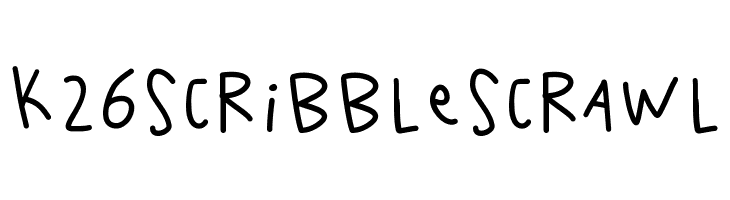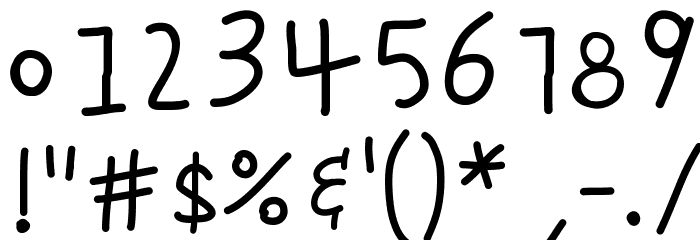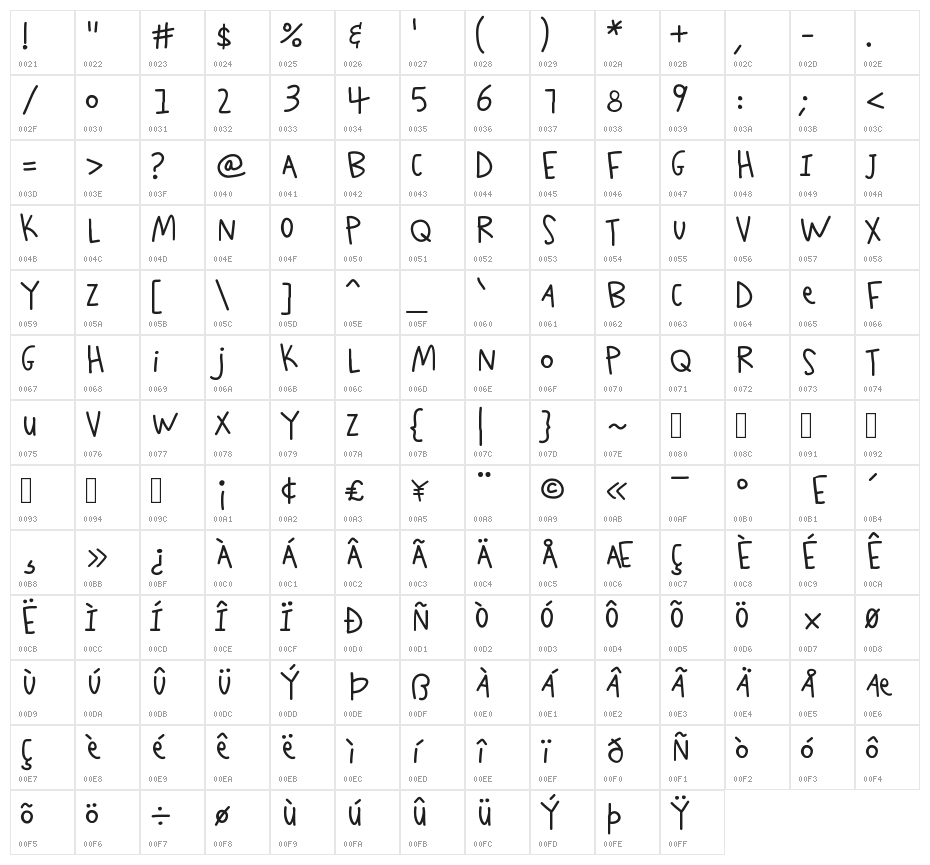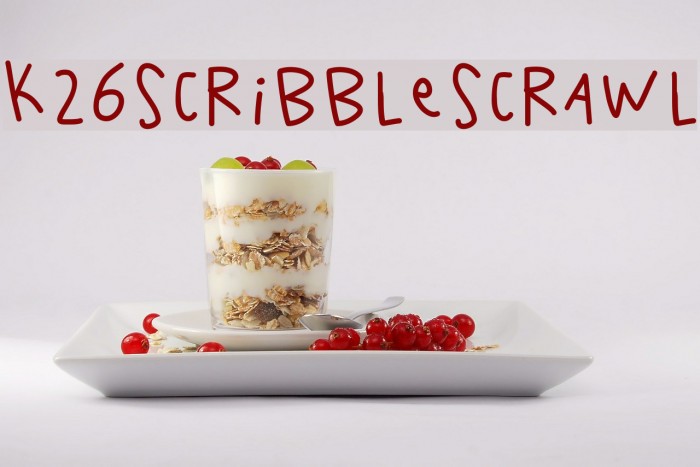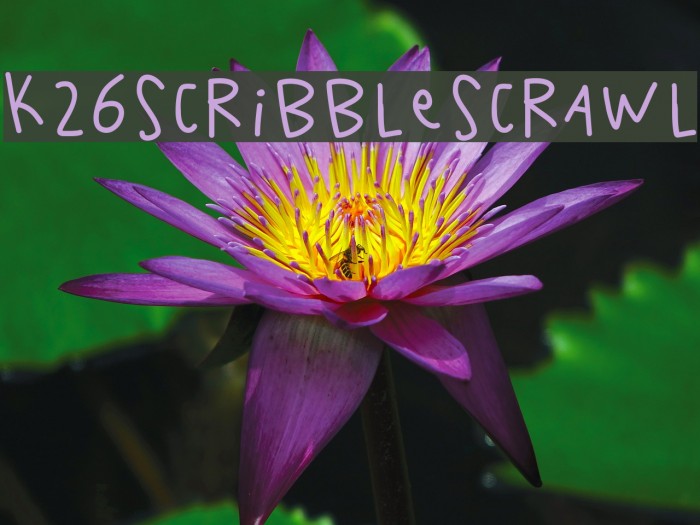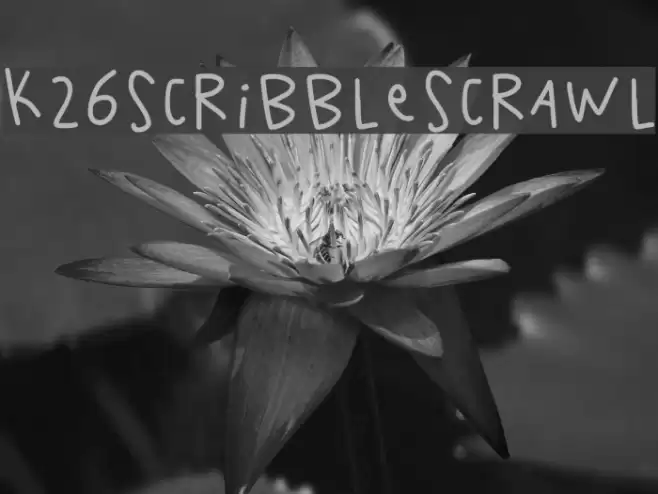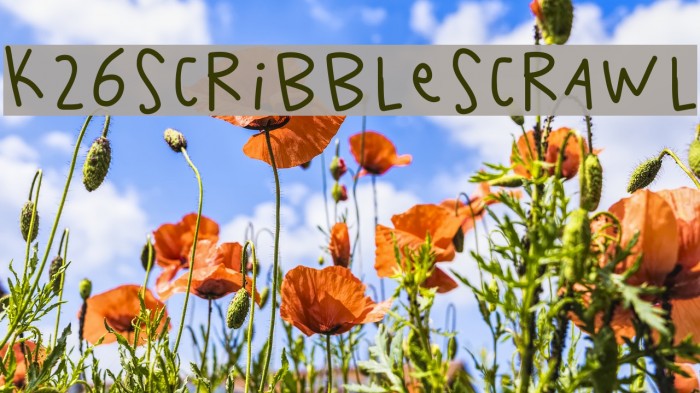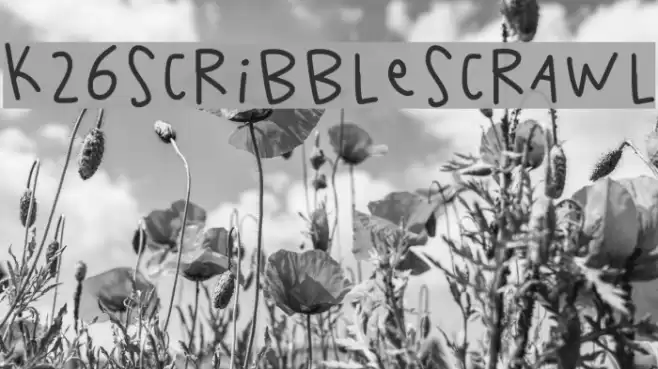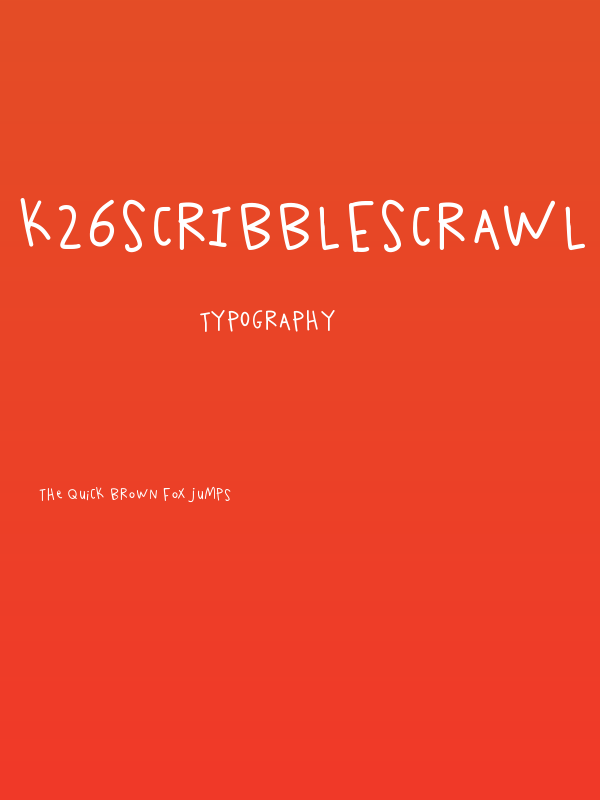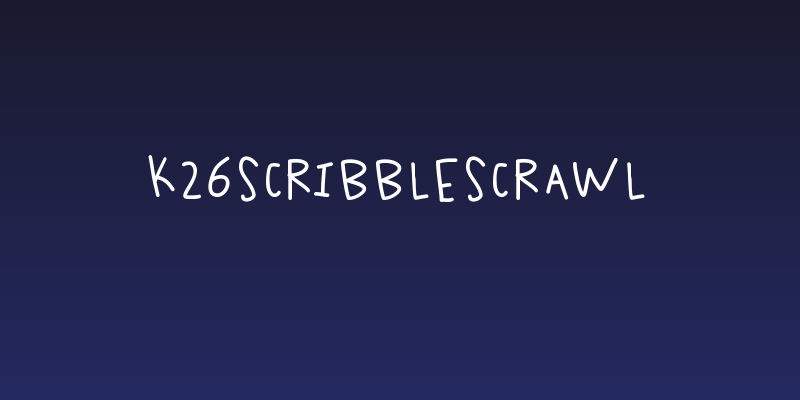
K26ScribbleScrawl Font
K26ScribbleScrawl Description
This playful and informal font features a handwritten style that mimics the look of casual scribbles. The characters are slightly irregular, adding a whimsical and personal touch to any design. The strokes are consistent in thickness, giving it a uniform appearance despite its casual nature. The font includes both uppercase and lowercase letters, numerals, and a range of special characters, making it versatile for various uses. Its charm lies in its simplicity and the way it captures the essence of hand-drawn text, making it ideal for projects that require a personal or creative flair.
| Proposed Projects | Ideal for children's books, greeting cards, personal blogs, and creative branding projects. |